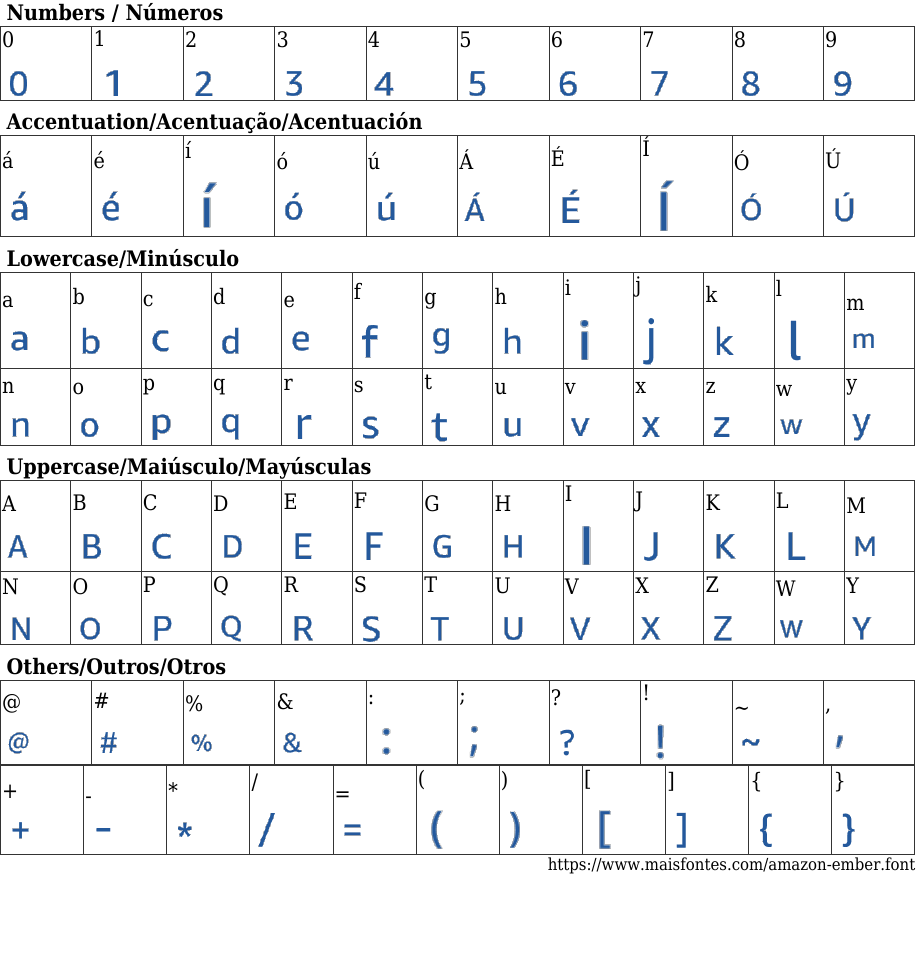
Amazon Ember Font
Amazon Ember Font - Then someone here recommended atkinson hyperlegible and i love it. Load all of the amazon ember ttf font files and click on save button. A font i previously hated, amazon ember, actually looked appealing and easy on the eyes. In your dropdown field you can now choose between the different amazon ember font editions. I still have my profiles saved for other fonts, but i've now added one for amazon ember, size 3, bold 0. Well, i think only developers working in any of amazon's products are permitted to use the font family, since, like almost every other corporate font, amazon ember is a typeface unique to.
Then someone here recommended atkinson hyperlegible and i love it. I still have my profiles saved for other fonts, but i've now added one for amazon ember, size 3, bold 0. In your dropdown field you can now choose between the different amazon ember font editions. Load all of the amazon ember ttf font files and click on save button. A font i previously hated, amazon ember, actually looked appealing and easy on the eyes. Well, i think only developers working in any of amazon's products are permitted to use the font family, since, like almost every other corporate font, amazon ember is a typeface unique to.
I still have my profiles saved for other fonts, but i've now added one for amazon ember, size 3, bold 0. Then someone here recommended atkinson hyperlegible and i love it. A font i previously hated, amazon ember, actually looked appealing and easy on the eyes. In your dropdown field you can now choose between the different amazon ember font editions. Well, i think only developers working in any of amazon's products are permitted to use the font family, since, like almost every other corporate font, amazon ember is a typeface unique to. Load all of the amazon ember ttf font files and click on save button.
I still have my profiles saved for other fonts, but i've now added one for amazon ember, size 3, bold 0. In your dropdown field you can now choose between the different amazon ember font editions. A font i previously hated, amazon ember, actually looked appealing and easy on the eyes. Then someone here recommended atkinson hyperlegible and i love.
I still have my profiles saved for other fonts, but i've now added one for amazon ember, size 3, bold 0. In your dropdown field you can now choose between the different amazon ember font editions. A font i previously hated, amazon ember, actually looked appealing and easy on the eyes. Load all of the amazon ember ttf font files.
Well, i think only developers working in any of amazon's products are permitted to use the font family, since, like almost every other corporate font, amazon ember is a typeface unique to. A font i previously hated, amazon ember, actually looked appealing and easy on the eyes. Then someone here recommended atkinson hyperlegible and i love it. Load all of.
Load all of the amazon ember ttf font files and click on save button. A font i previously hated, amazon ember, actually looked appealing and easy on the eyes. In your dropdown field you can now choose between the different amazon ember font editions. I still have my profiles saved for other fonts, but i've now added one for amazon.
A font i previously hated, amazon ember, actually looked appealing and easy on the eyes. Well, i think only developers working in any of amazon's products are permitted to use the font family, since, like almost every other corporate font, amazon ember is a typeface unique to. In your dropdown field you can now choose between the different amazon ember.
Load all of the amazon ember ttf font files and click on save button. In your dropdown field you can now choose between the different amazon ember font editions. I still have my profiles saved for other fonts, but i've now added one for amazon ember, size 3, bold 0. Well, i think only developers working in any of amazon's.
Load all of the amazon ember ttf font files and click on save button. In your dropdown field you can now choose between the different amazon ember font editions. A font i previously hated, amazon ember, actually looked appealing and easy on the eyes. I still have my profiles saved for other fonts, but i've now added one for amazon.
Well, i think only developers working in any of amazon's products are permitted to use the font family, since, like almost every other corporate font, amazon ember is a typeface unique to. Then someone here recommended atkinson hyperlegible and i love it. I still have my profiles saved for other fonts, but i've now added one for amazon ember, size.
A font i previously hated, amazon ember, actually looked appealing and easy on the eyes. I still have my profiles saved for other fonts, but i've now added one for amazon ember, size 3, bold 0. Load all of the amazon ember ttf font files and click on save button. Well, i think only developers working in any of amazon's.
Then Someone Here Recommended Atkinson Hyperlegible And I Love It.
Well, i think only developers working in any of amazon's products are permitted to use the font family, since, like almost every other corporate font, amazon ember is a typeface unique to. I still have my profiles saved for other fonts, but i've now added one for amazon ember, size 3, bold 0. In your dropdown field you can now choose between the different amazon ember font editions. Load all of the amazon ember ttf font files and click on save button.